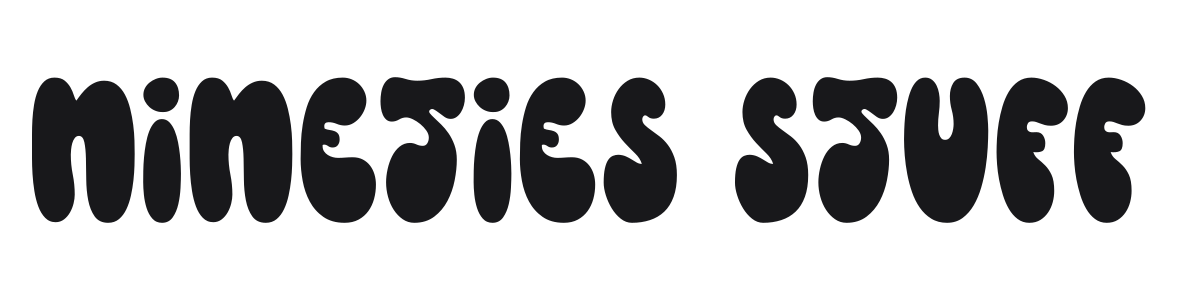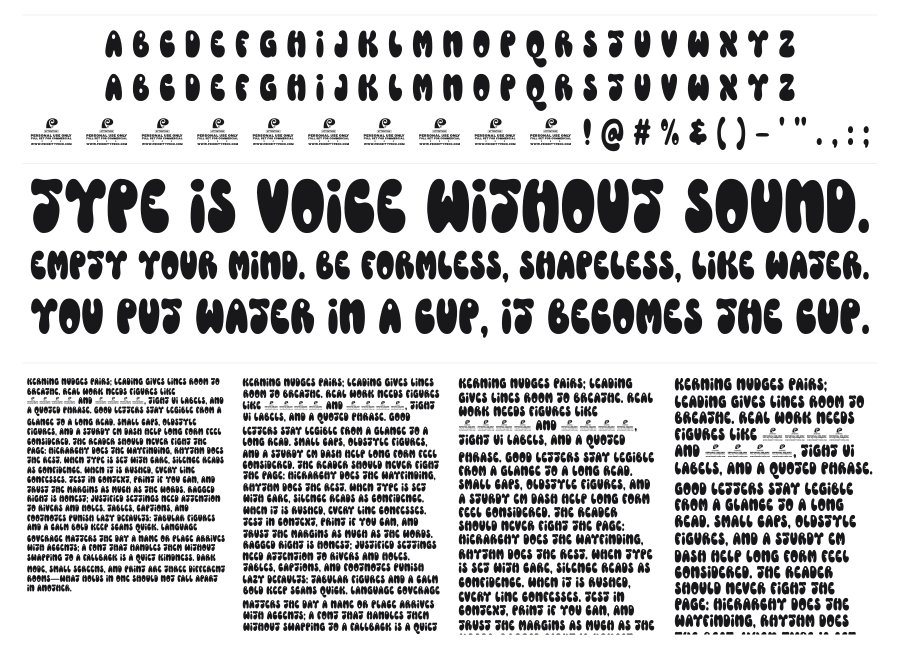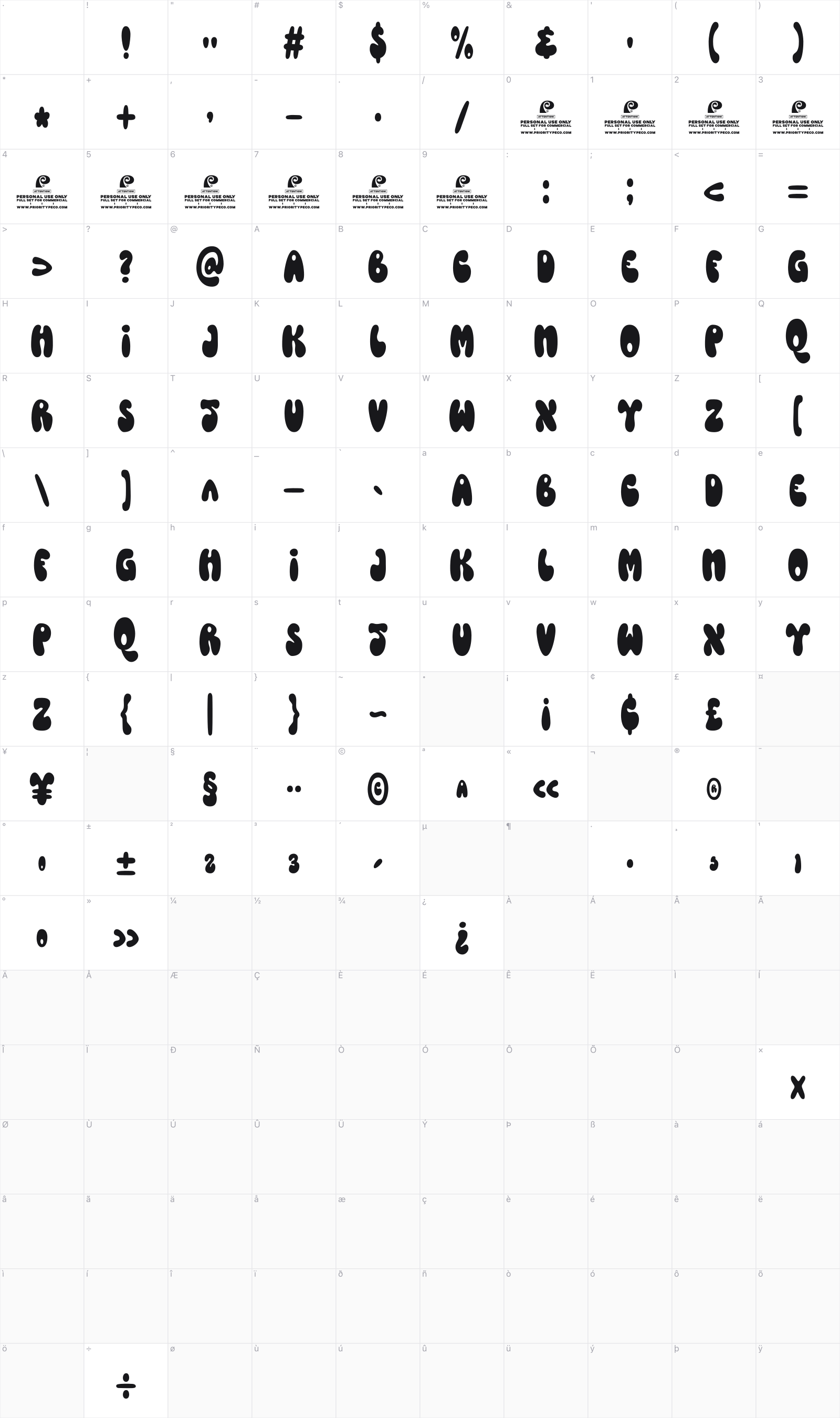
Nineties Stuff
Nineties Stuff is a chunky groovy display font built entirely from inflated, ballooning strokes that merge and crowd against each other like bubble letters pressed to their limit. The retro personality pulls from late-60s psychedelic poster type and early-90s nostalgia simultaneously. It works best big, where the personality can breathe.